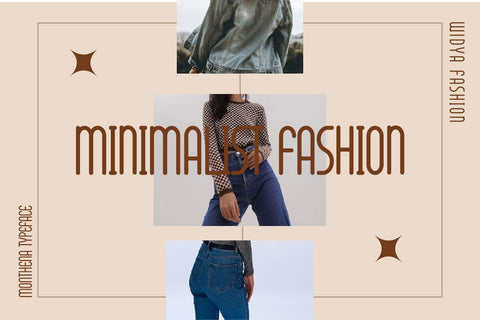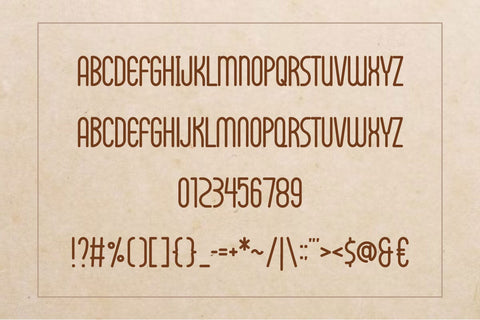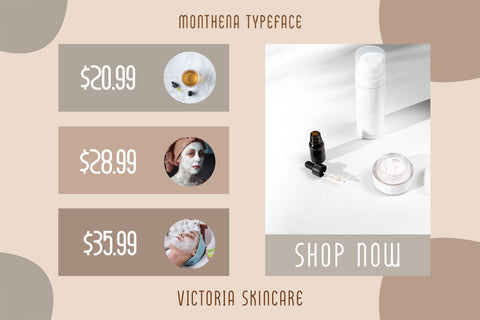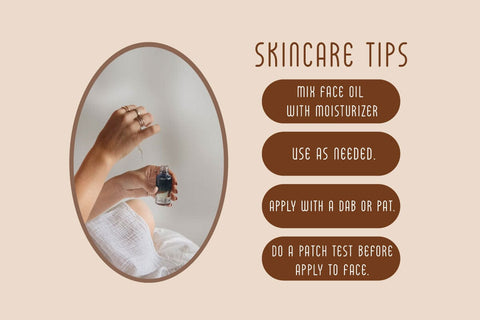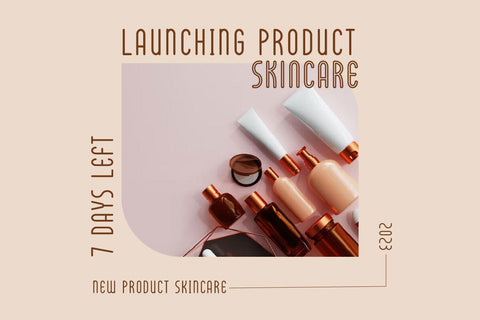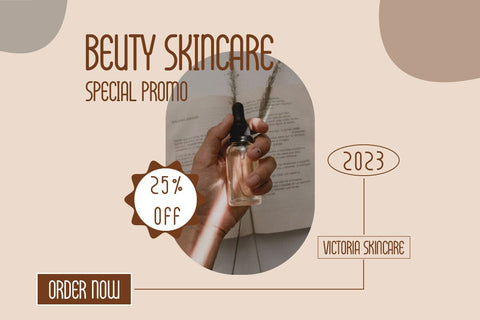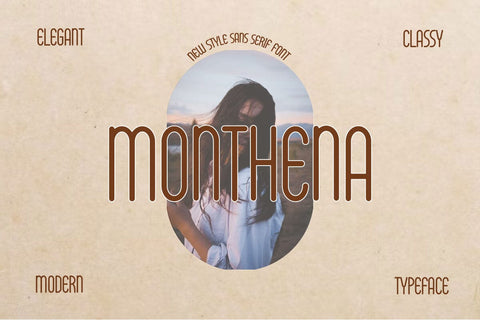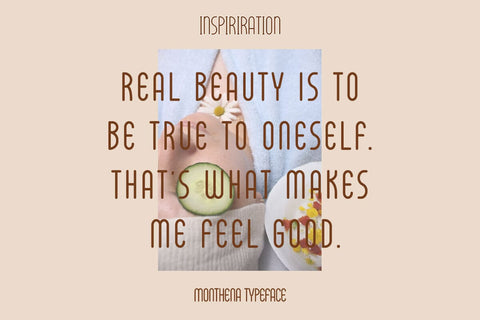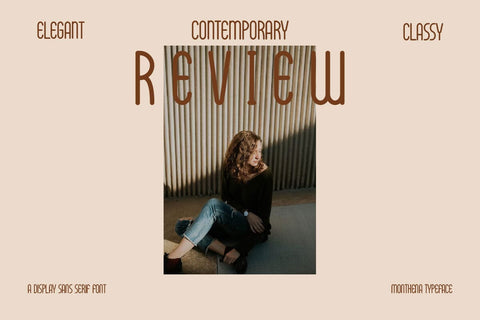
Monthena - Elegant Sans Serif Font
Hi, Introducing Monthena - Elegant Sans Serif Font
A font with a modern style based on a minimalist monoline shape that is touched in a modern and elegant style. This font is perfect for a variety of creative needs such as printing, books, titles, headlines, photography, embellishments, branding, logos, and more.